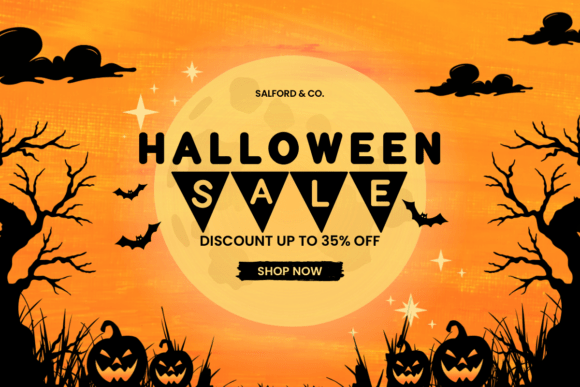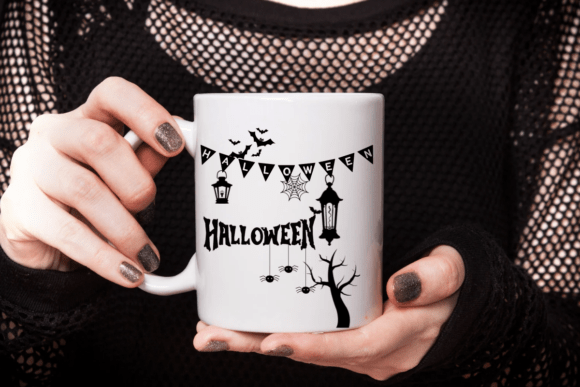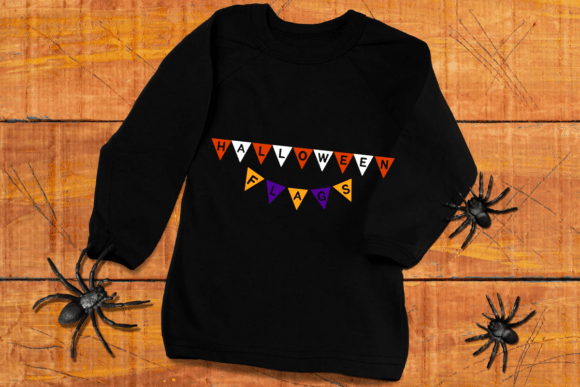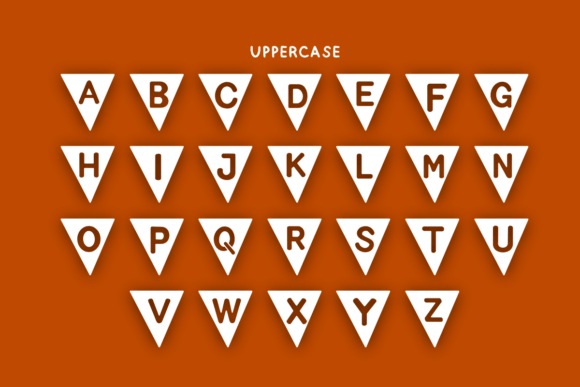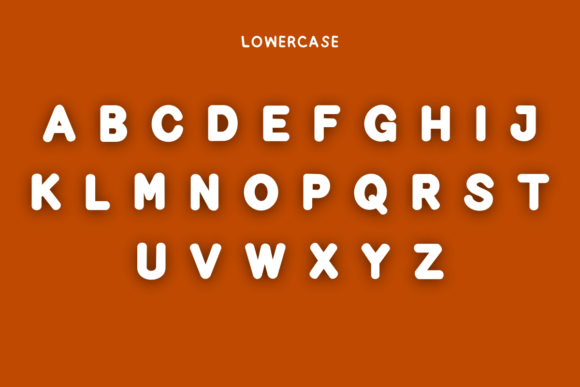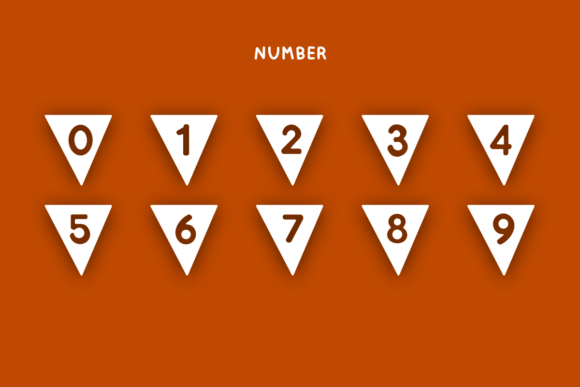
Unleash the Spirit of Halloween with Halloween Flags Font
As the spookiest time of the year approaches, designers and crafters are on the lookout for unique and creative elements to add a touch of Halloween magic to their projects. If you’re looking for a font that embodies the spirit of Halloween, look no further than Halloween Flags. This decorative font is designed to infuse creativity into every keystroke, making it perfect for a wide range of applications, from notes and diary entries to greeting cards, banners, and social media posts.
A Font that Adds Personality to Your Projects
Halloween Flags is a truly unique font that can transform your notes into artistic expressions, your diary entries into captivating stories, and your greeting cards into personalized works of art. With its playful and festive design, this font is sure to add a touch of personality to any project. Whether you’re a designer looking to create eye-catching banners or a crafter looking to add a personal touch to your DIY projects, Halloween Flags is the perfect choice.
Beyond Paper: Exploring the Creative Possibilities of Halloween Flags
While Halloween Flags is perfect for paper-based projects, its versatility extends far beyond. This font can be used in a wide range of designs, including:
- Banners: Create eye-catching banners that are sure to grab attention.
- Content: Add a touch of Halloween magic to your blog posts, articles, and social media updates.
- Merchandise: Design bespoke merchandise like mugs, t-shirts, and tote bags that are perfect for the Halloween season.
- Stationery: Elevate your stationery with a font that’s sure to make your letters and cards stand out.
Why Halloween Flags is a Game-Changer for Designers and Crafters
Halloween Flags is more than just a font – it’s a creative tool that can help you:
- Stand out on social media: With its unique and attention-grabbing design, Halloween Flags is sure to make your social media posts stand out from the crowd.
- Add a personal touch: Use Halloween Flags to add a personal touch to your DIY projects, making them extra special and meaningful.
- Save time: With its versatility and ease of use, Halloween Flags can save you time and effort in your design and crafting projects.
Tips for Getting the Most out of Halloween Flags
To get the most out of Halloween Flags, here are a few tips:
- Experiment with different sizes and colors: Play around with different sizes and colors to find the perfect combination for your project.
- Pair it with other fonts: Combine Halloween Flags with other fonts to create a unique and eye-catching design.
- Use it consistently: Use Halloween Flags consistently throughout your project to create a cohesive and professional look.
Halloween Flags is a truly unique and versatile font that’s perfect for designers and crafters looking to add a touch of Halloween magic to their projects. With its playful and festive design, this font is sure to infuse creativity into every keystroke. Whether you’re creating notes, diary entries, greeting cards, banners, or social media posts, Halloween Flags is the perfect choice. So why wait? Unleash the spirit of Halloween with Halloween Flags and take your designs to the next level!